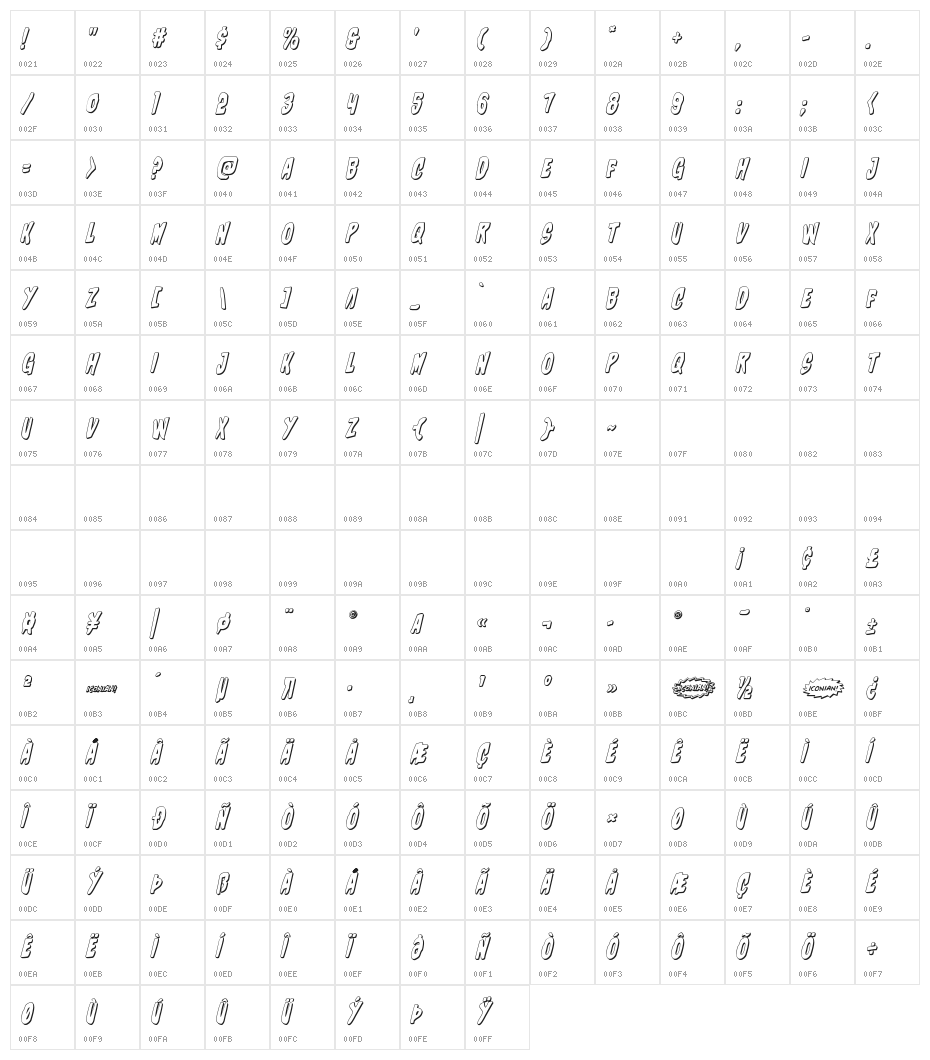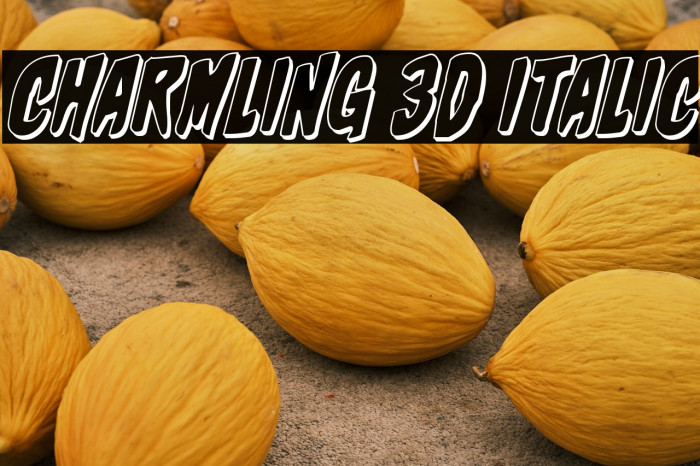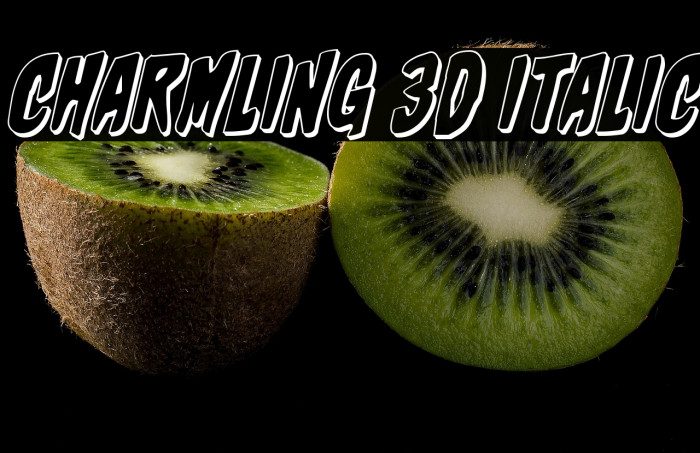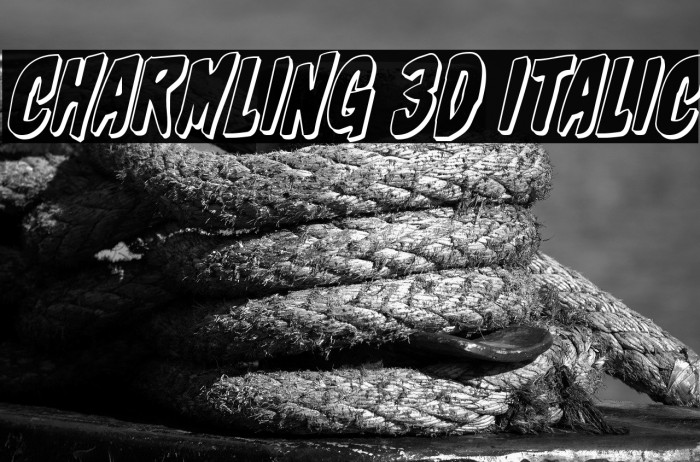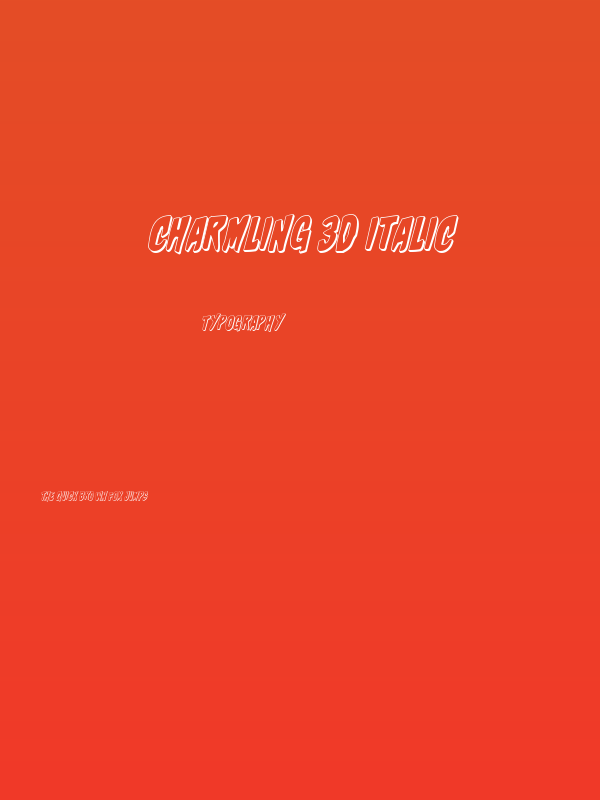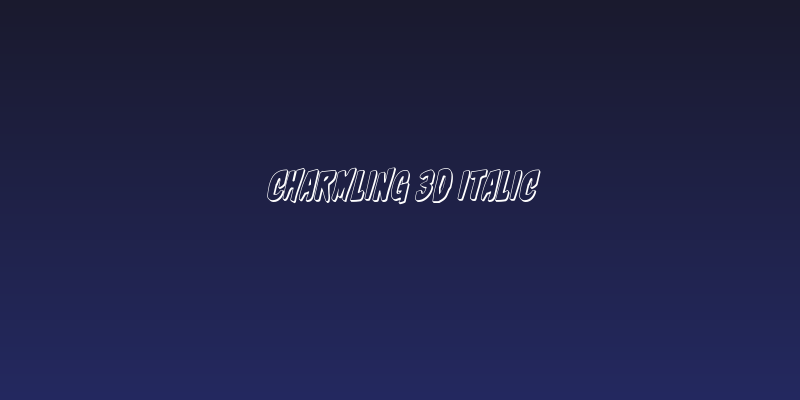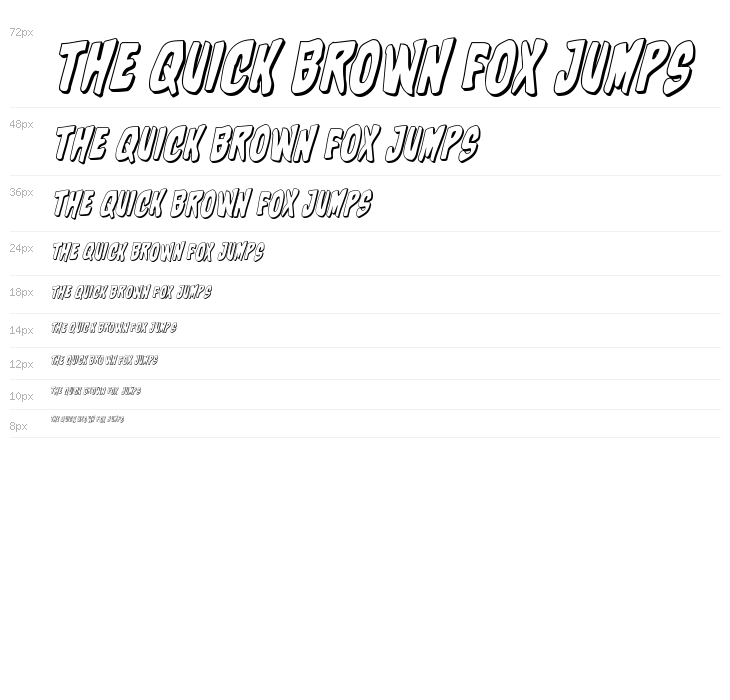
Charmling 3D Italic Font
Charmling 3D Italic Description
This font features a bold, playful 3D effect with a distinct italic slant, giving it a dynamic and energetic appearance. The characters are outlined, adding depth and a sense of movement. The uppercase and lowercase letters maintain a consistent style, with rounded edges and a slightly condensed form. The numerals and special characters are designed to match the overall aesthetic, making the font versatile for various uses. Its unique style makes it stand out, perfect for projects that require a fun and engaging look.
| Proposed Projects | Ideal for children's book covers, playful branding, posters, and creative digital content. |